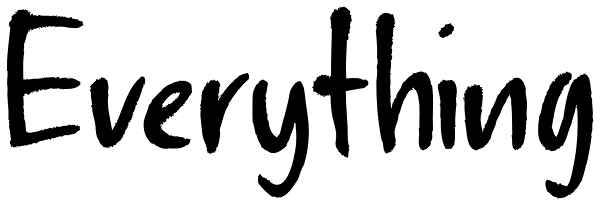
Everything
Everything is a simple, yet beautiful handwritten font. You will need to use OpenType supporting applications to use the autoligatures.
Everything Font